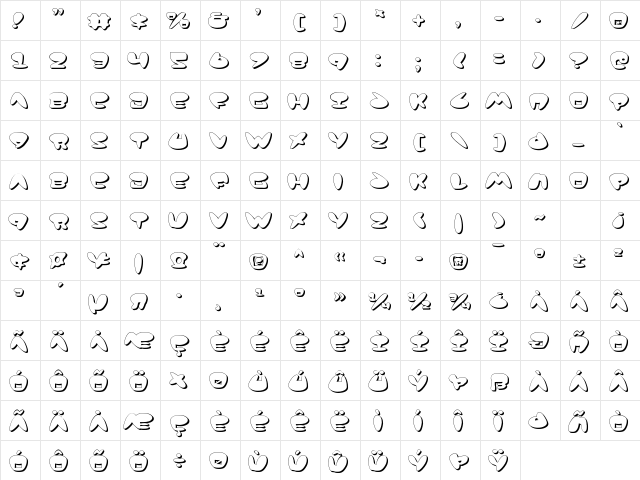
Jackson Shadow Shadow
Jackson Shadow is built around its visual character rather than neutral utility — its distinctive forms are designed to make an impression at display sizes.
Font Pairing: Pair with a clean neutral sans-serif for body copy to let Jackson Shadow's character lead without overwhelming the composition.
Pro Tip: Use Jackson Shadow exclusively at display sizes — it was designed to be seen, not read at length. Let a neutral companion handle body copy.